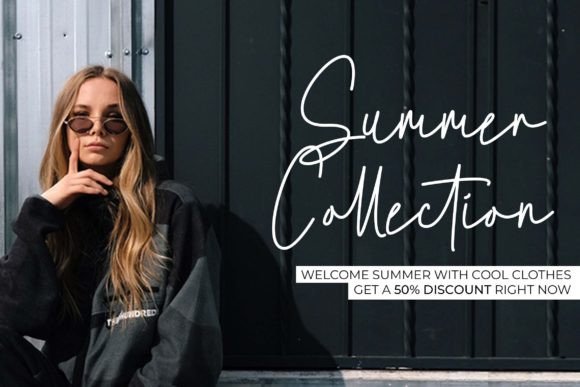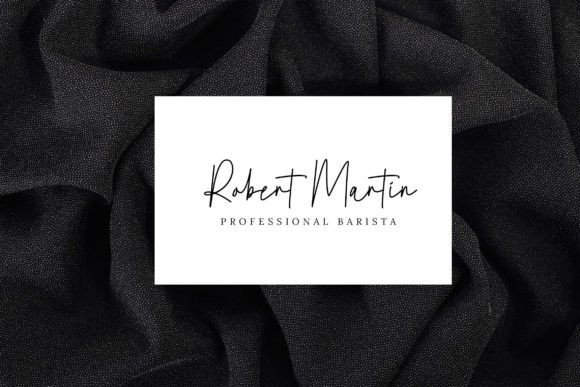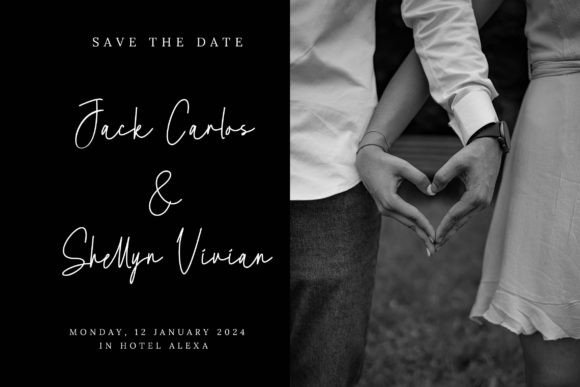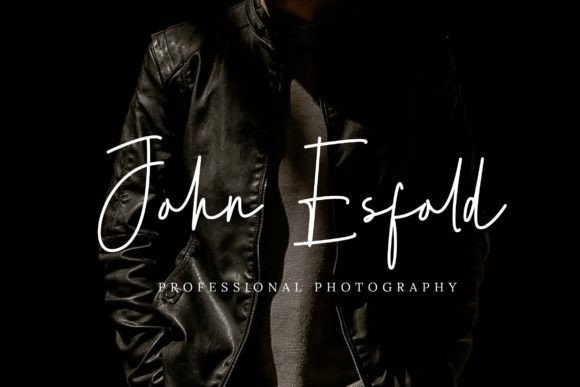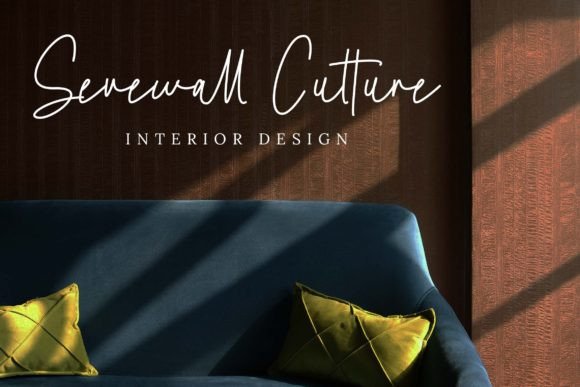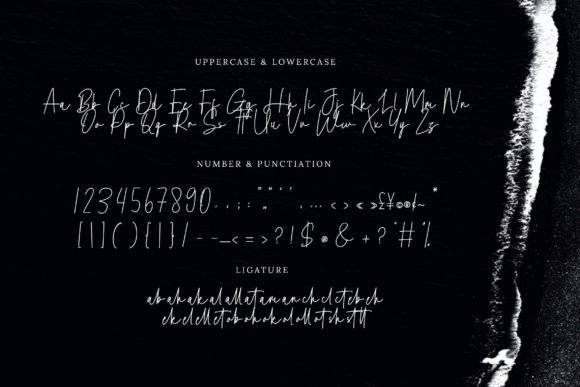
Introducing Grenature Font: Elevate Your Designs with Elegance and Charm
In the world of typography, fonts play a crucial role in conveying the tone and personality of a design. For designers and crafters looking to add a touch of sophistication and elegance to their projects, Grenature Font is an excellent choice. This stylish handwritten script font is designed to exude charm and refinement, making it perfect for a variety of applications, from invitations and logos to branding and more.
The Beauty of Grenature Font
Grenature Font is characterized by its flowing, graceful curves that bring a sense of warmth and creativity to any design. The font’s delicate strokes are carefully crafted to create a sense of movement and fluidity, giving it a dynamic and expressive feel. Whether you’re looking to create a luxurious brand identity or a beautiful wedding invitation, Grenature Font is sure to impress.
Perfect for Invitations, Logos, and Branding
One of the key benefits of Grenature Font is its versatility. Its elegant and refined design makes it perfect for a wide range of applications, including:
- Invitations: Add a touch of sophistication to your wedding invitations, birthday party invites, or any other special occasion with Grenature Font.
- Logos: Create a luxurious brand identity with Grenature Font, perfect for high-end businesses, fashion brands, or lifestyle companies.
- Branding: Use Grenature Font to add a personal and sophisticated touch to your brand’s marketing materials, packaging, and website.
Why Choose Grenature Font?
With so many fonts available, why choose Grenature Font? Here are just a few reasons why designers and crafters love this stylish handwritten script font:
- Elegance: Grenature Font exudes elegance and sophistication, making it perfect for high-end designs.
- Versatility: Use Grenature Font for a wide range of applications, from invitations and logos to branding and more.
- Warmth: The font’s delicate strokes bring a sense of warmth and creativity to any design.
- Easy to Read: Despite its elegant design, Grenature Font is easy to read, making it perfect for body text and headlines.
Tips for Using Grenature Font
To get the most out of Grenature Font, here are a few tips to keep in mind:
- Pair with a Sans-Serif Font: For a classic look, pair Grenature Font with a sans-serif font, such as Arial or Helvetica.
- Use for Headlines and Titles: Grenature Font is perfect for headlines and titles, where its elegant design can shine.
- Add a Personal Touch: Use Grenature Font to add a personal touch to your designs, whether it’s a handwritten note or a custom illustration.
In conclusion, Grenature Font is a stylish handwritten script font that is sure to elevate your designs with its elegance and charm. With its flowing, graceful curves and delicate strokes, it’s perfect for invitations, logos, branding, and more. Whether you’re a designer or crafter, Grenature Font is a great choice for anyone looking to add a touch of sophistication and refinement to their projects.